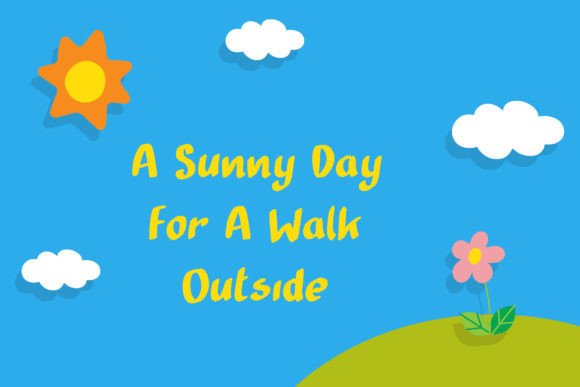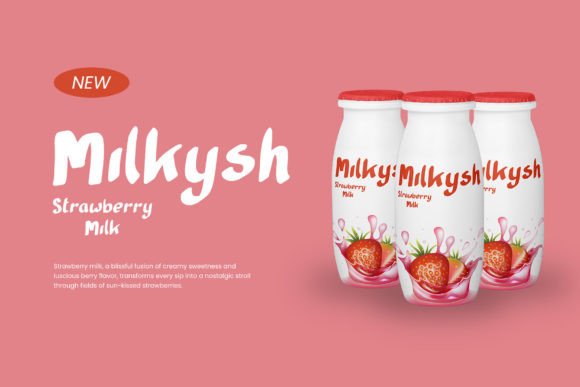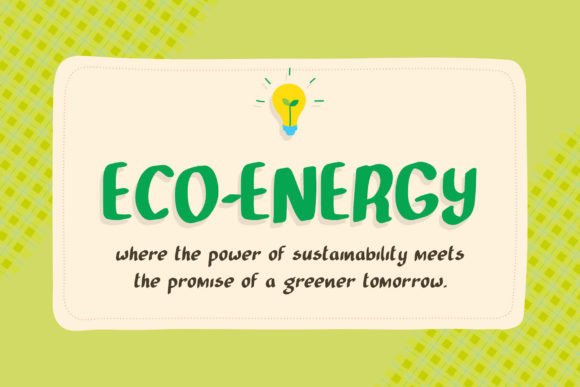
Introduction to Kedondong Font
Have you ever been working on a creative project and stumbled upon that perfect font that brings your entire design to life? For many designers, that moment is a game-changer. It’s the moment when you finally find that elusive combination of style and personality that makes your design truly stand out.
One such gem is the Kedondong Font, a hand-drawn typeface that exudes organic elegance and artistic craftsmanship. Its unique, hand-drawn strokes and whimsical curves create an enchanting visual rhythm that’s hard to resist. Whether you’re working on a branding project, a poster, or a digital illustration, the Kedondong Font is sure to add a delightful and personalized touch to your design.
Key Features of Kedondong Font
- High-quality design resource suitable for creative projects, offering a unique and stylish touch.
- Designed with precision, ensuring crisp and clear typography at high resolutions (up to 300 DPI).
- Includes a range of glyphs and characters, making it an excellent choice for various design applications.
- Perfect for graphic designers, illustrators, and artists seeking a distinctive and high-quality font for their creative endeavors.
Honest Review: Kedondong Font
As a designer, I’m always on the lookout for unique and high-quality fonts to enhance my creative projects. The Kedondong Font caught my attention with its exotic and modern design. After giving it a try, I’m excited to share my honest review.
- ✨ Unique and modern design that sets it apart from other fonts.
- ✨ Highly customizable, allowing for a transparent background and various font styles.
- ⚠️ Limited character set, which may not be suitable for longer texts or formal documents.
- ⚠️ Some users may find the font too bold or overpowering, depending on the design context.
In conclusion, the Kedondong Font is a great addition to any designer’s toolkit, offering a fresh and modern look for creative projects. While it may have some limitations, its unique design and customization options make it a valuable design resource. I would recommend it for projects that require a bold and eye-catching font, such as graphic design, UI/UX design, or even branding materials. Overall, I’m impressed with the Kedondong Font, and I’m sure you will be too!